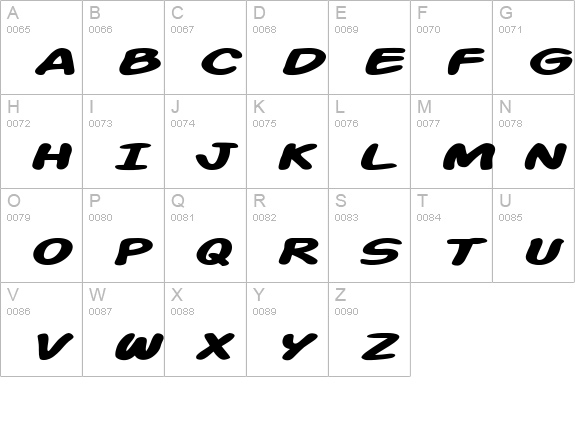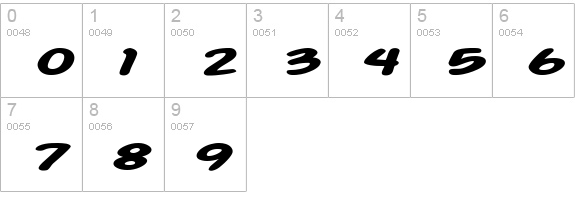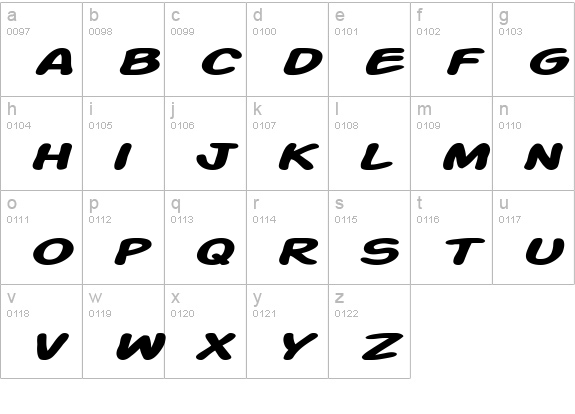
Action Man Extended Bold Italic Font Details
Action Man Extended Bold Italic is a strong, high-contrast, extended-width, italic variant in the Action typeface family \xE2\x80\x94 well suited to headlines, attention-grabbing titles, and strong calls-to-action.
Action Man Extended Bold Italic is a powerful and dynamic font that exudes energy and strength. Its bold and italic design commands attention and makes a bold statement. This versatile typeface is perfect for creating eye-catching headlines, posters, and branding materials. With its extended letterforms, it adds a modern and edgy touch to any design project. And the best part is, Action Man Extended Bold Italic is available for free download at FontsMarket.com. So you can easily add this striking font to your collection and use it for all your creative projects without any cost. Don't miss out on this opportunity to enhance your designs with the bold and impactful Action Man Extended Bold Italic font.